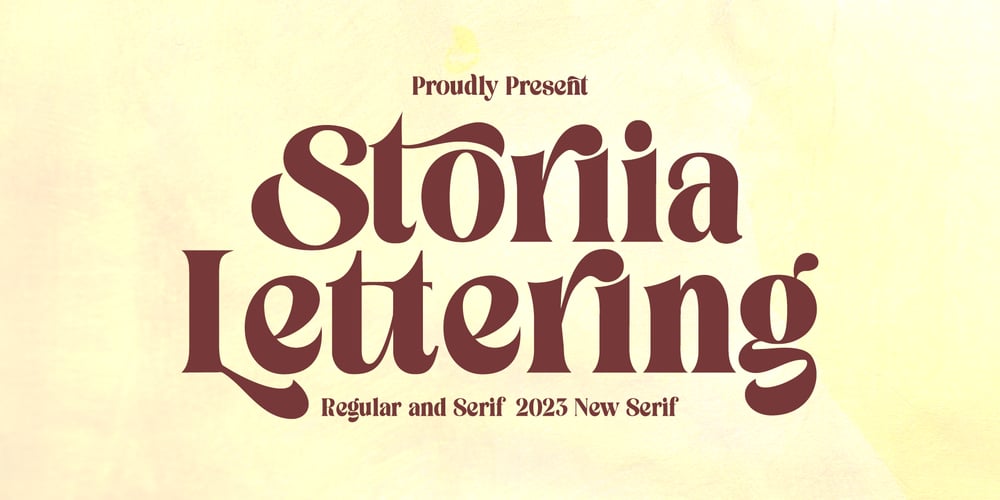
Storia Lettering
Storia Lettering font
Storia Lettering Font Family was designed by khaidir and published by Gatype. Storia Lettering contains 2 styles and family package options. he Storia Lettering Serif style is absolutely perfect for editorial headings. The full font type upright and italic makes it easy for you to use the 2 styles in many projects. This font is complete with symbols and is multilingual. This font style is bold, bold, and sleek, featuring Swash,n Ligature and Stylistic Alt & Stylistic Set features. making it perfect for editorial, web, posters, t-shirts and magazine covers. . etc.Including:Storia Lettering & ItalicsUppercase Letters, Numbers, Punctuation & Symbols.Multilingual SupportMore about this source text Source text is needed to get additional translation informationSend feedbackSide panel